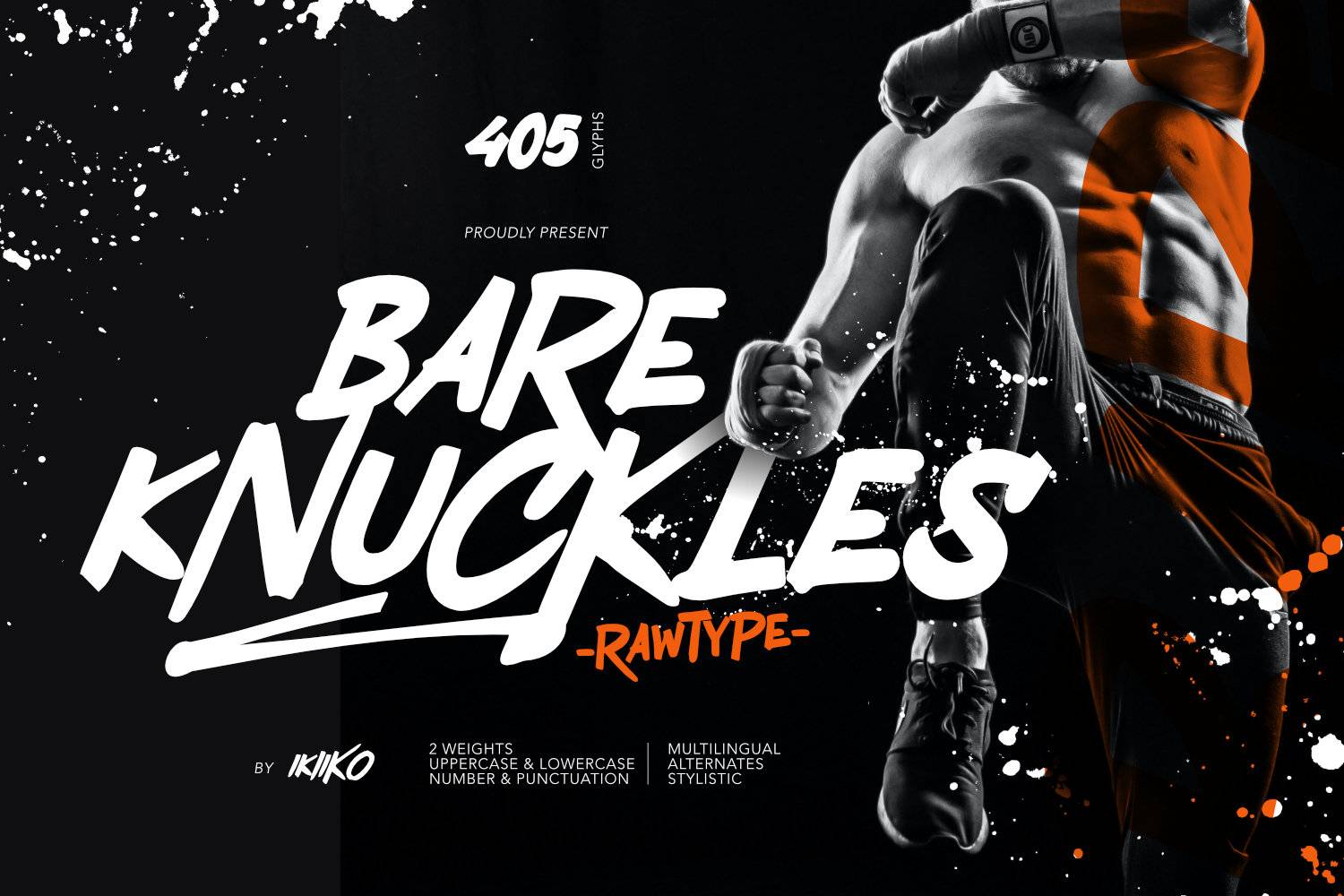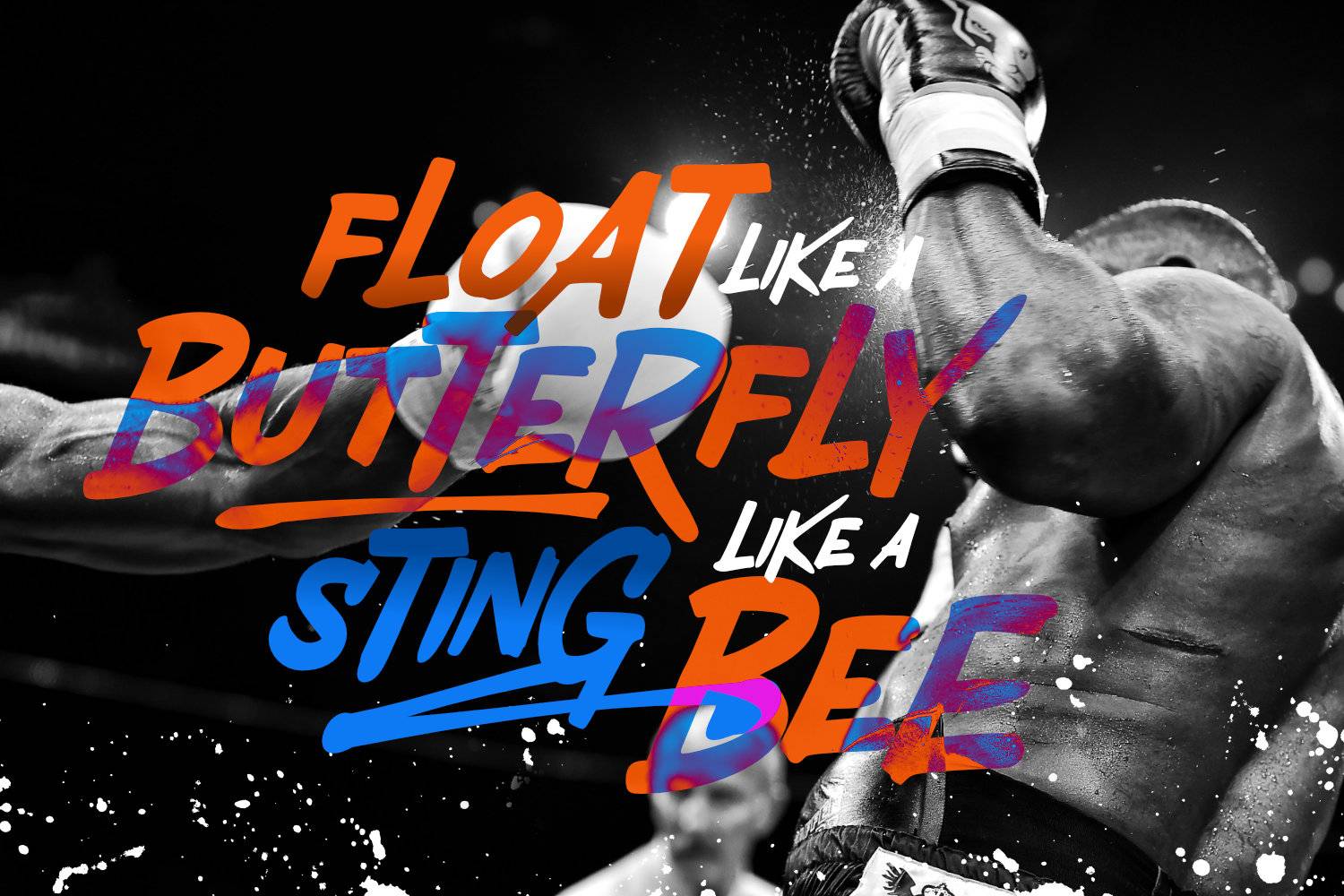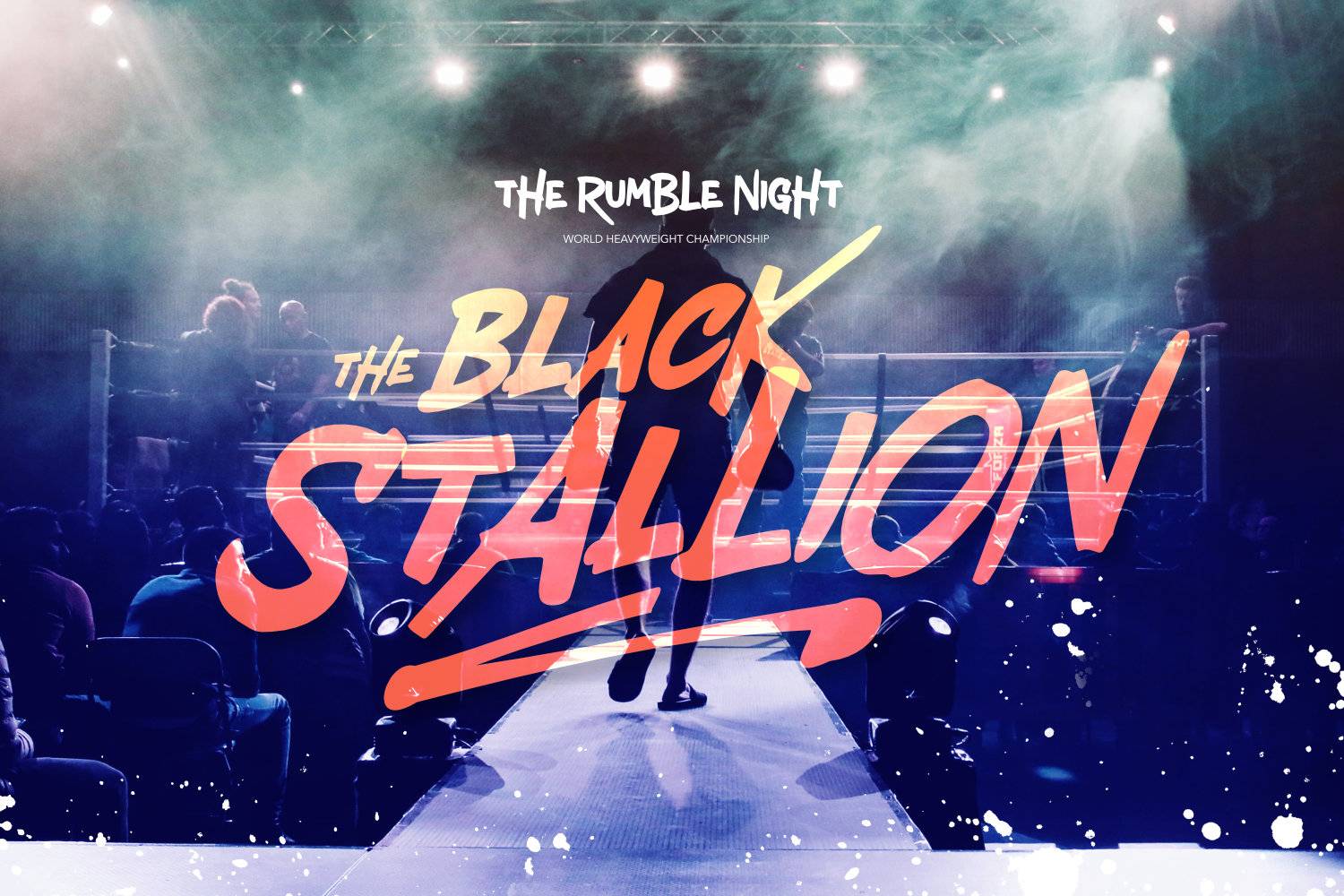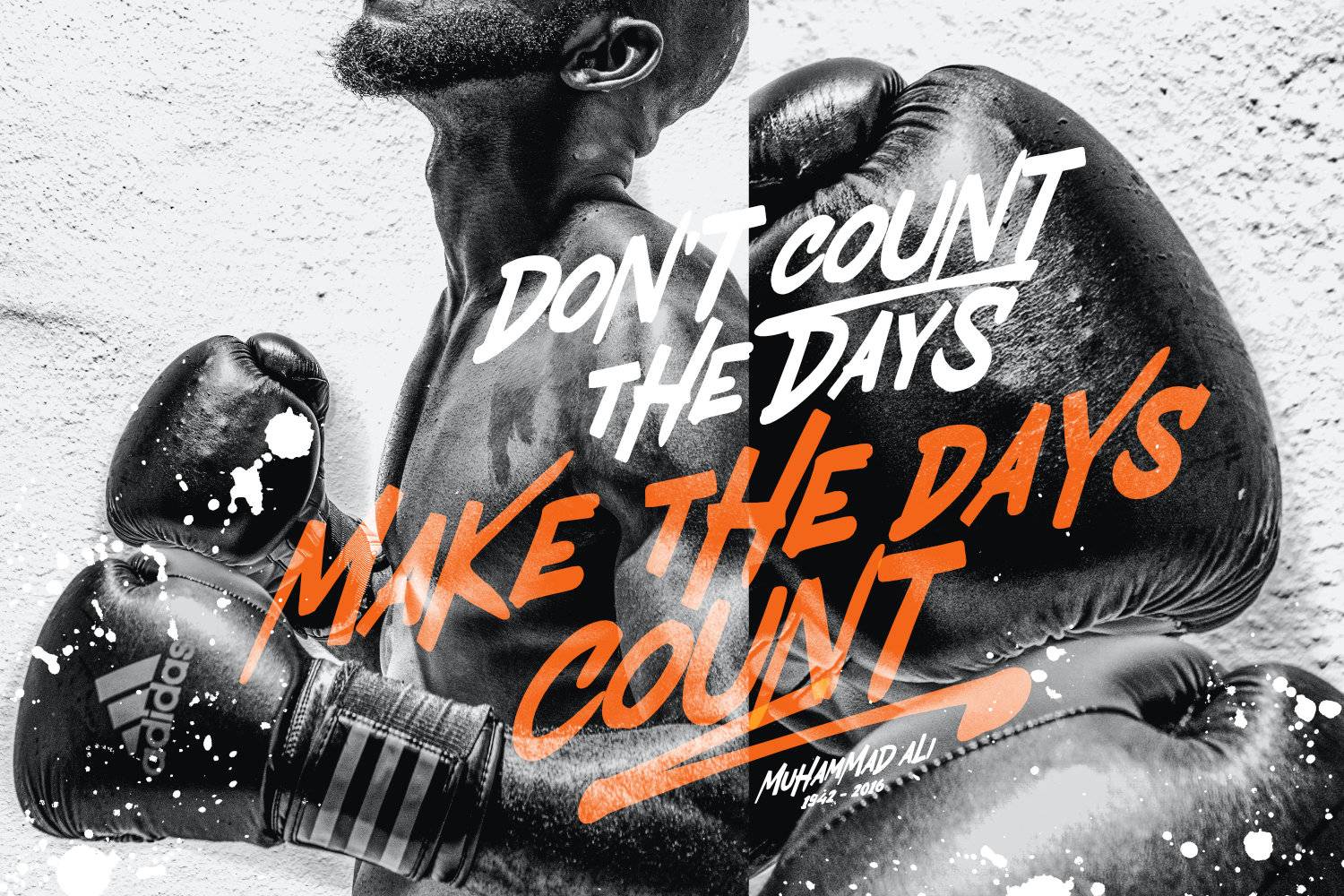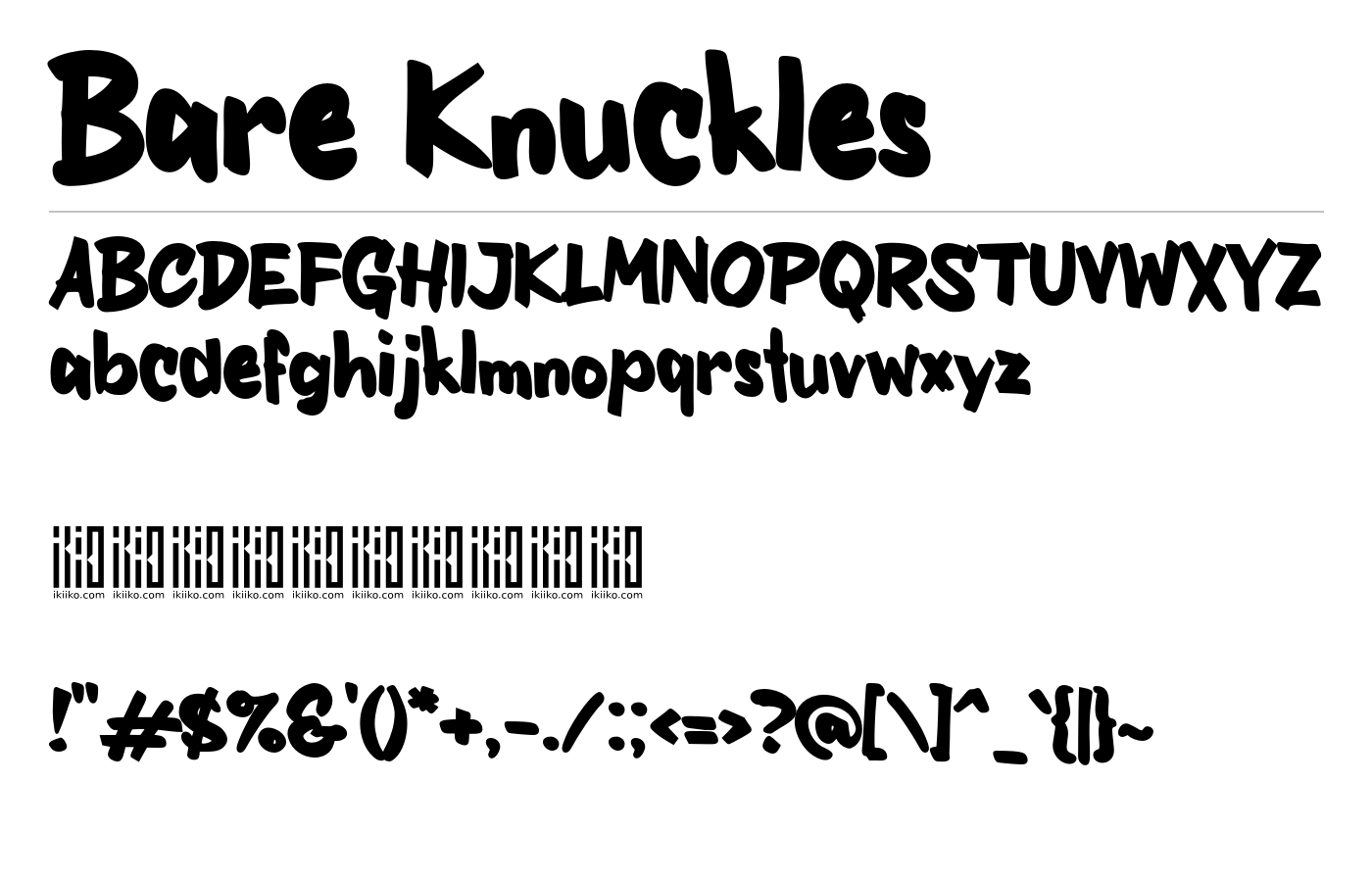
Bare Knuckles is a bold, playful sans serif font with a chunky, hand-drawn feel that gives it a casual and approachable personality. Its uneven strokes and quirky letterforms create a lively and energetic vibe, making it perfect for fun branding, posters, and headlines that want to grab attention without feeling formal. This font works well where a friendly, dynamic style is needed to stand out with warmth and character.
Bare Knuckles Font
About Bare Knuckles Font